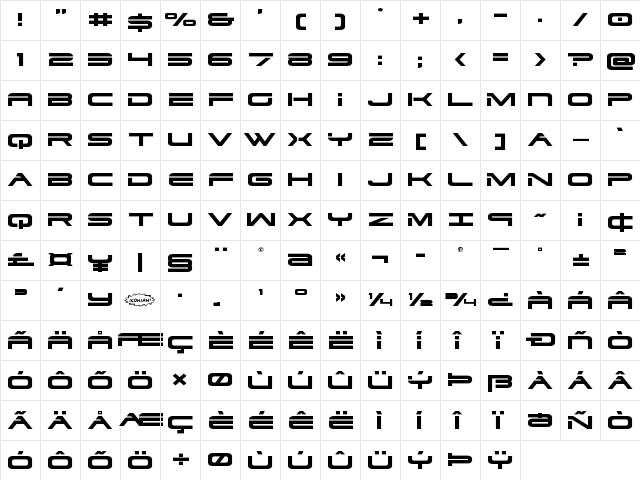
Dodger Expanded Expanded
Design Context for Dodger Expanded Typeface
Dodger Expanded offers clean, dependable letterforms without strong stylistic allegiance, making it a practical choice for designers who need flexibility.
Pro Tip: Use Dodger Expanded in both headline and body roles to test its range before committing to a single application.